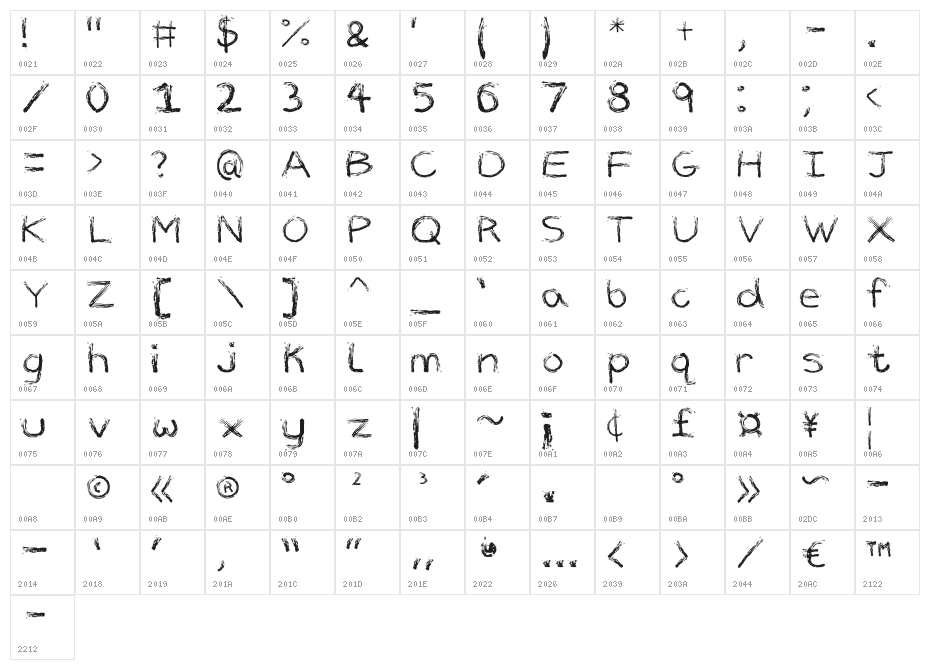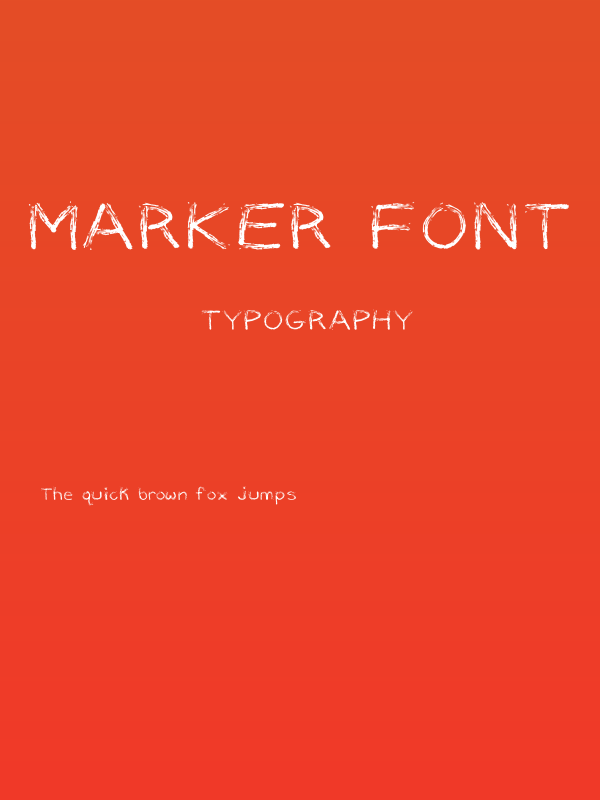
Marker Font Font
Marker Font Description
This font features a rough, hand-drawn appearance reminiscent of marker strokes. Each character is uniquely textured, giving it a raw and artistic feel. The letters are slightly irregular, adding to the casual and informal style. The uppercase and lowercase letters maintain a consistent height, while the numbers and special characters follow the same rugged aesthetic. This font is ideal for projects that require a personal touch or a creative, edgy look.
Proposed ProjectsGreat for artistic posters, album covers, creative branding, and informal invitations.